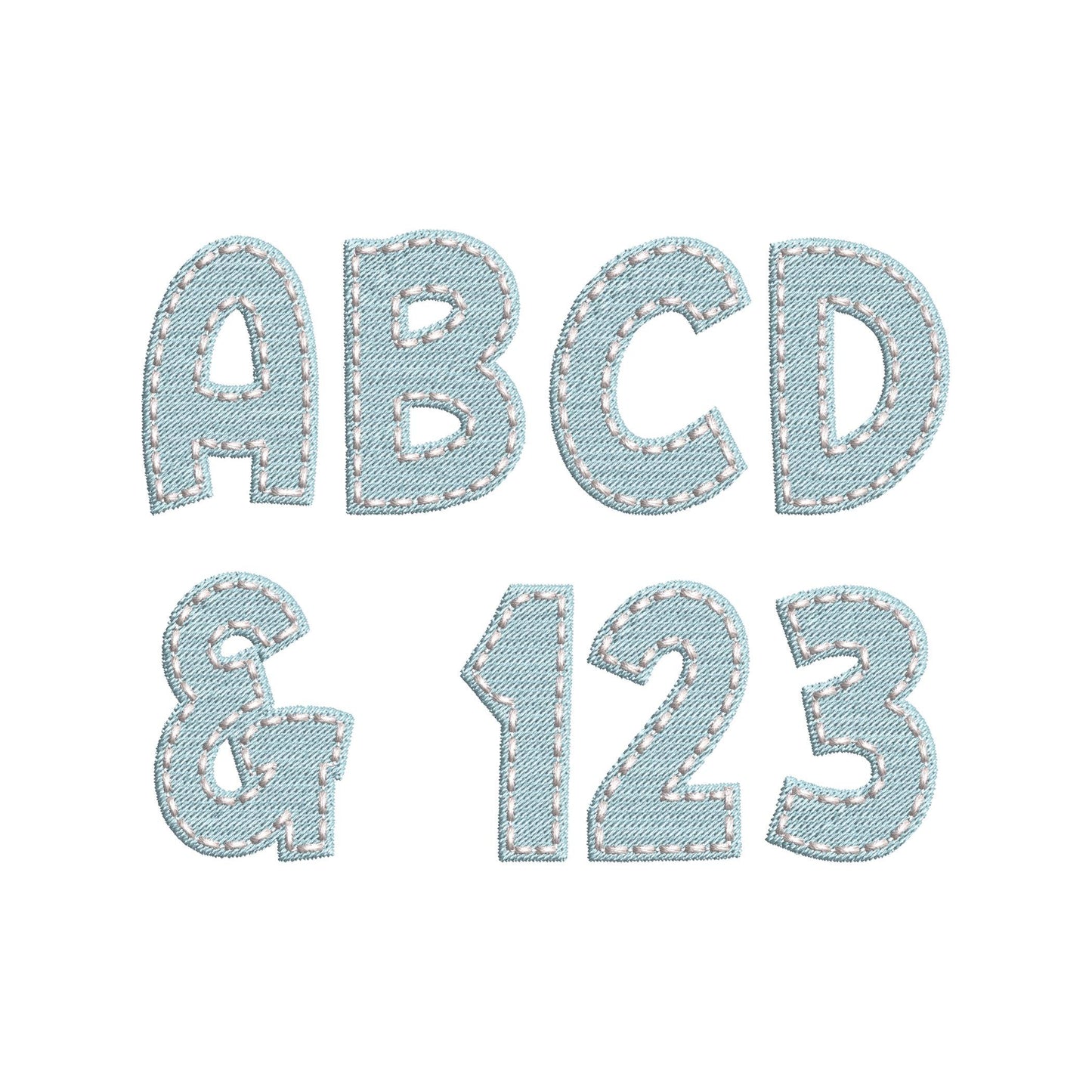
Fill Stitch Bold Font
Or click to open the linkA bold fill stitch font with a hand-stitched look on top. Great for boys' names, monograms and team shirts.
The letters come in five sizes: 1.2, 1.5, 1.8, 2.3 and 2.8 inches. Bold fill stitch letters with a running line on top that looks hand-stitched. Includes uppercase letters A to Z, numbers 0 to 9 and punctuation.
- Bold fill stitch font with hand-stitch look
- Uppercase A to Z, numbers 0 to 9, punctuation
- 5 sizes, 1.2 to 2.8 in